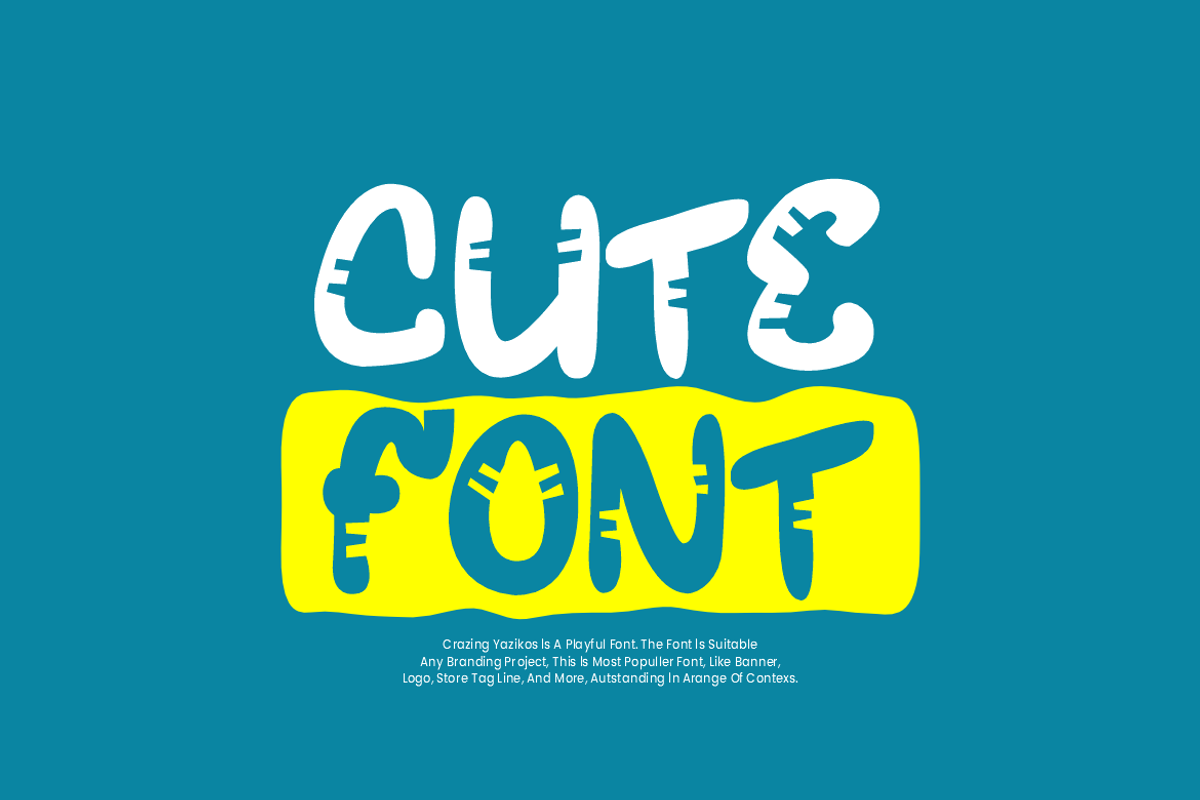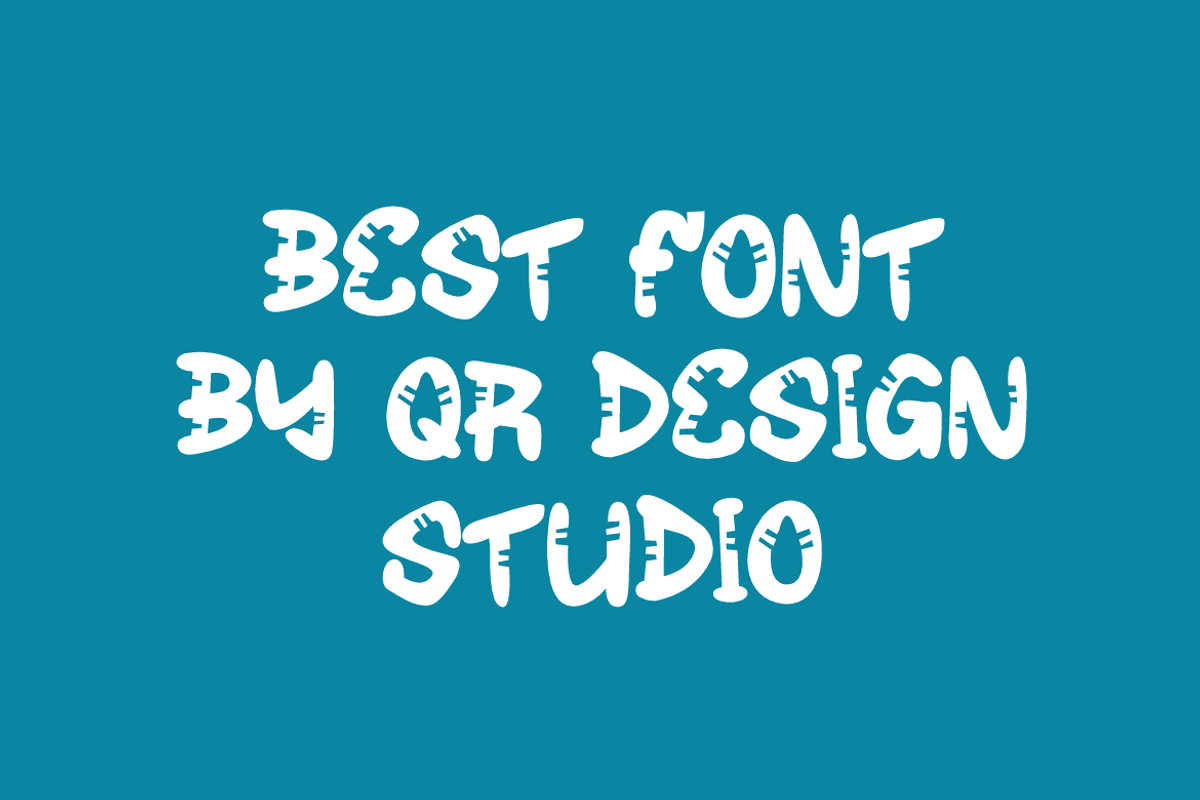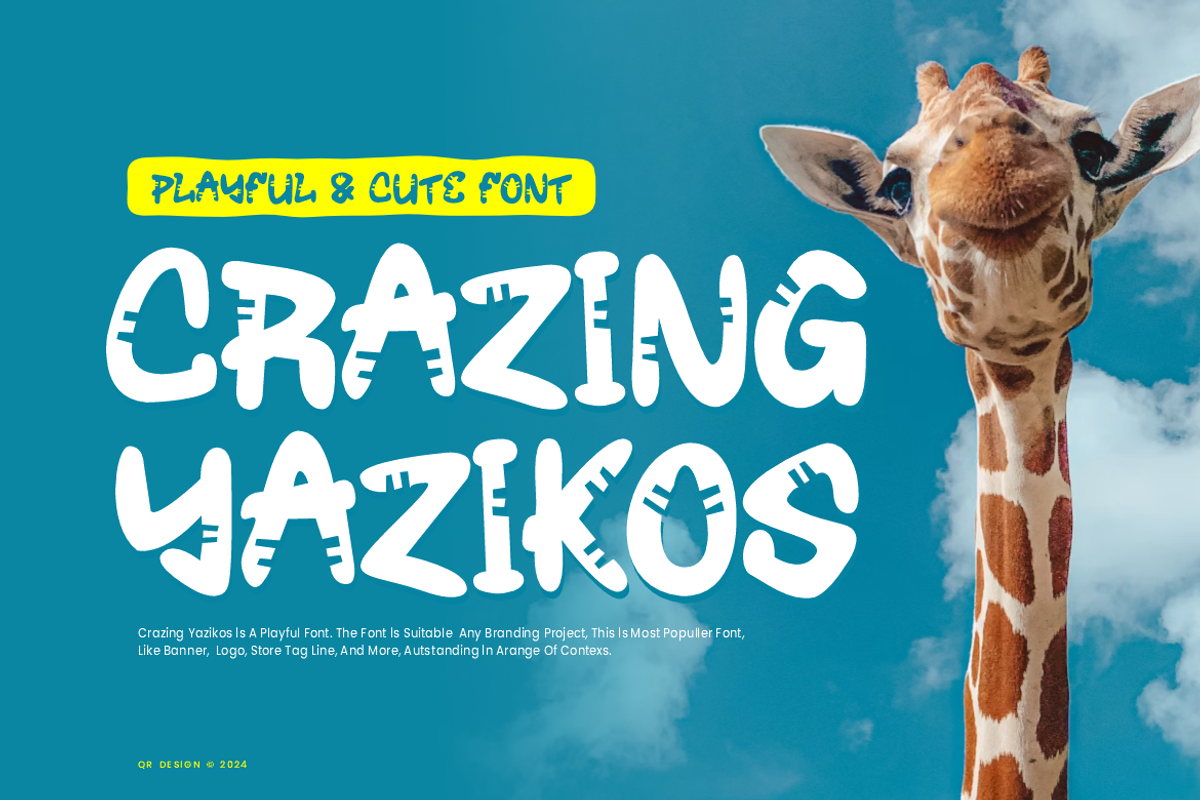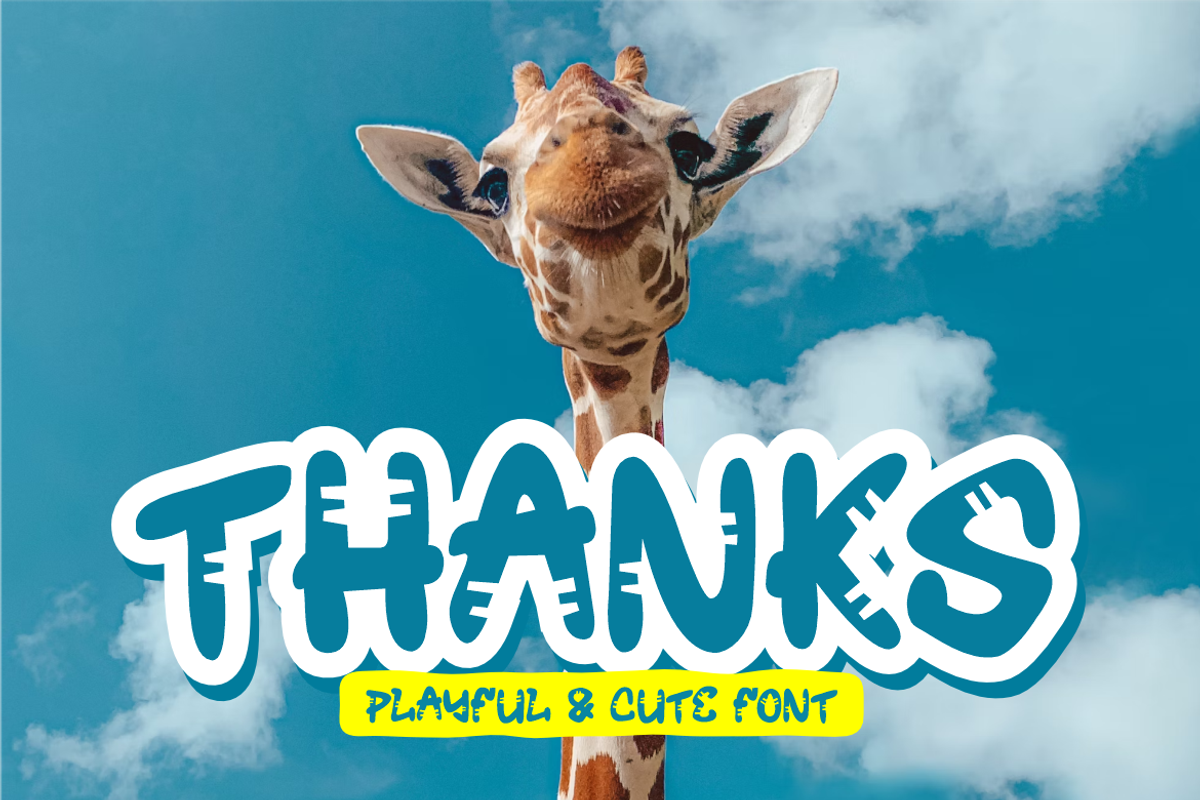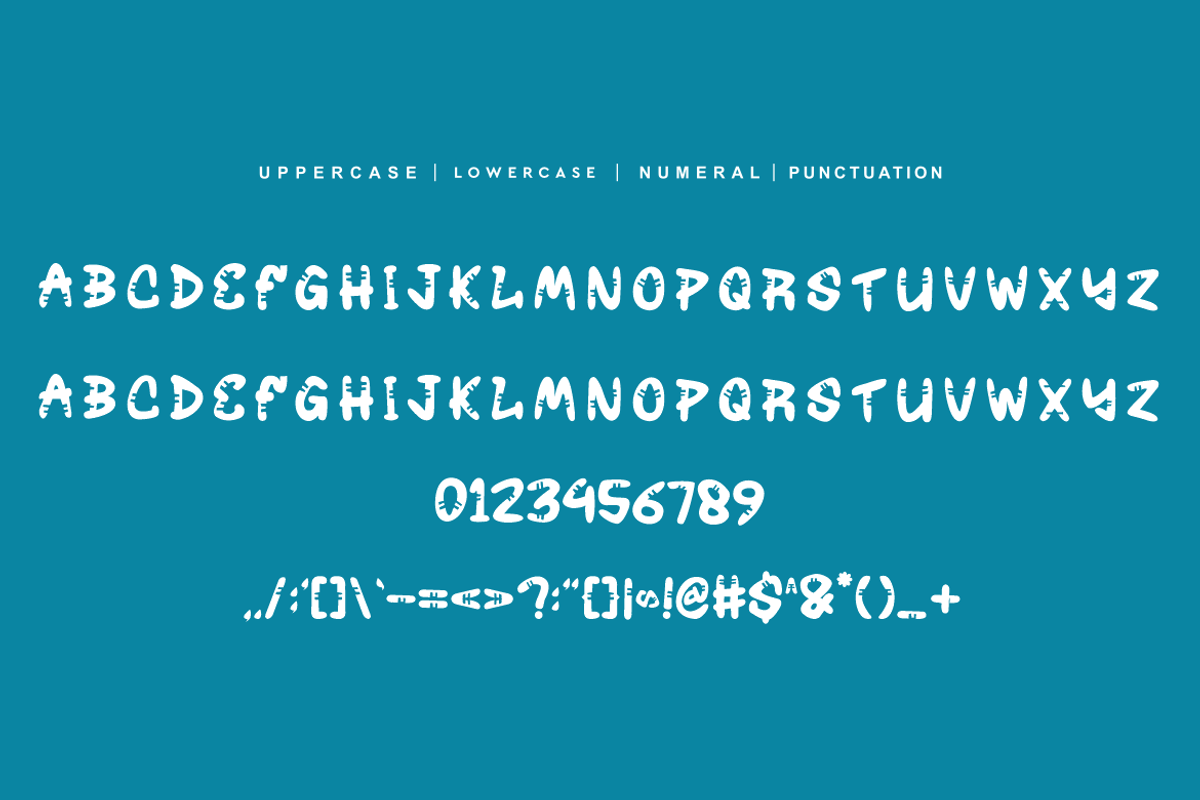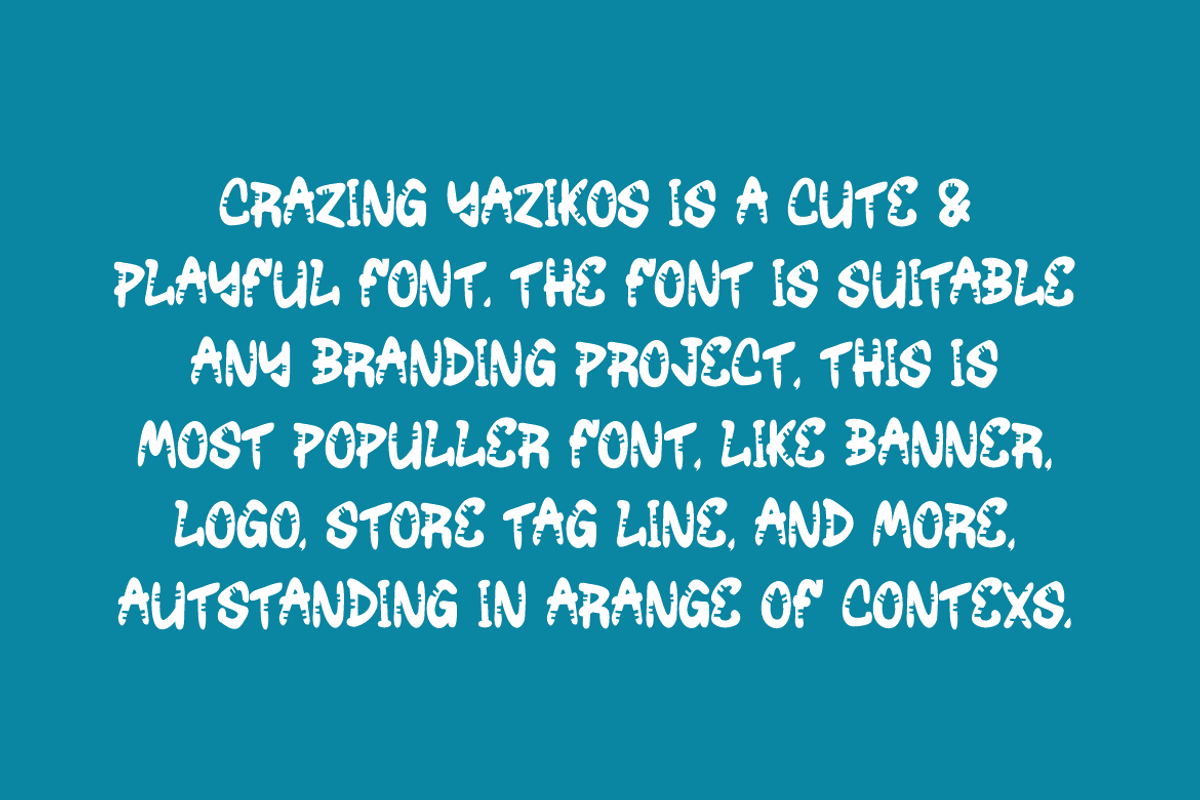
Crazing Yazikos - Playful Font
Crazing Yazikos Font is a bold and authentic display font. The font is suitable for any branding project like poster, logo, kids, and many more. Outstanding in a wide range of contexts.